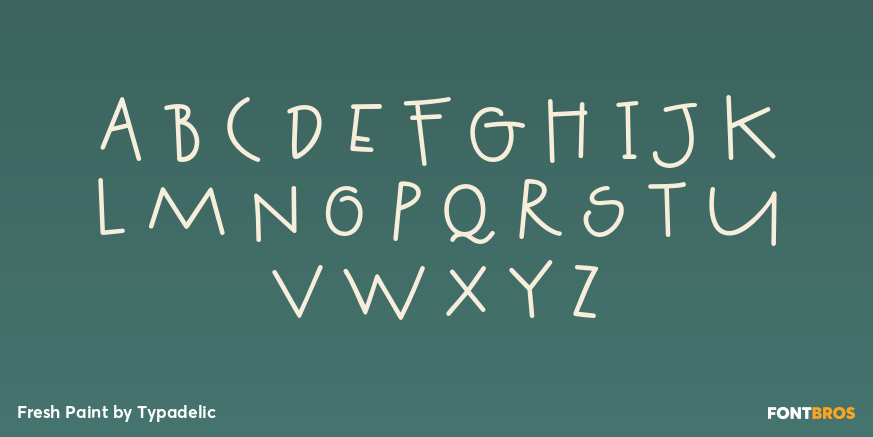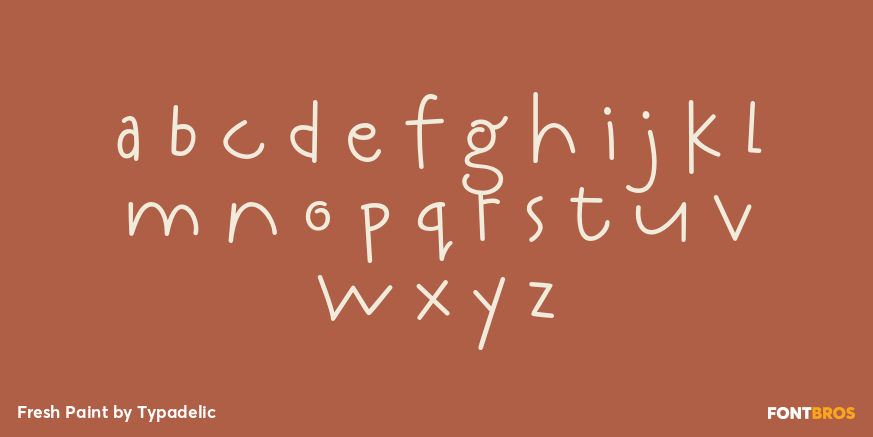
Fresh Paint
Font Family by Typadelic
Fresh Paint is just that...fresh and cheerful! With varying widths and irregular sizes of the lowercase letters, Fresh Paint lends a bouncy rhythm to text. Works very well for display purposes or as body text.